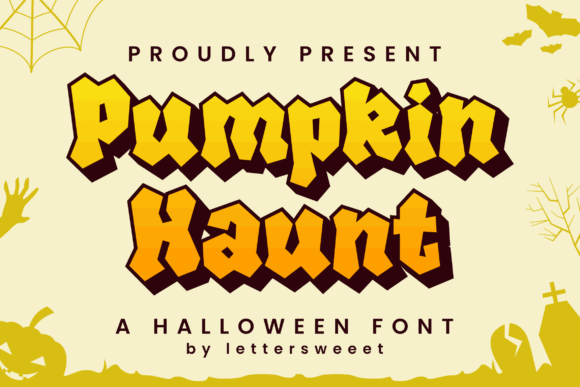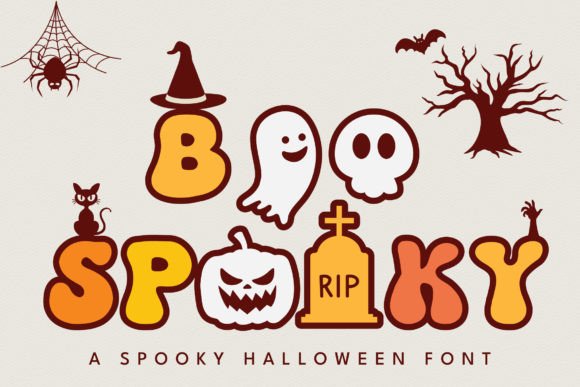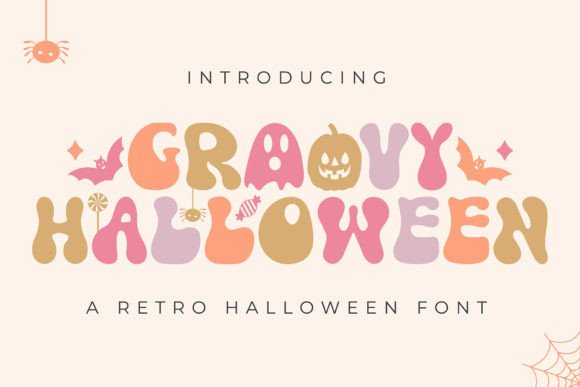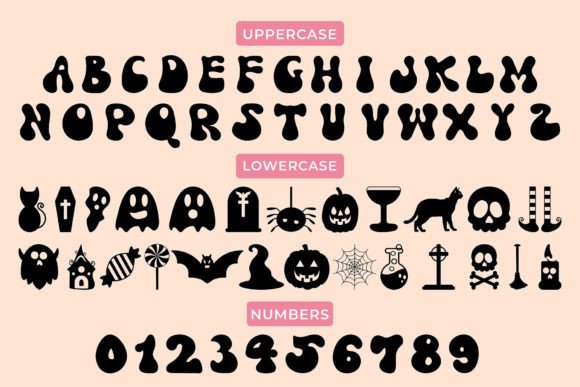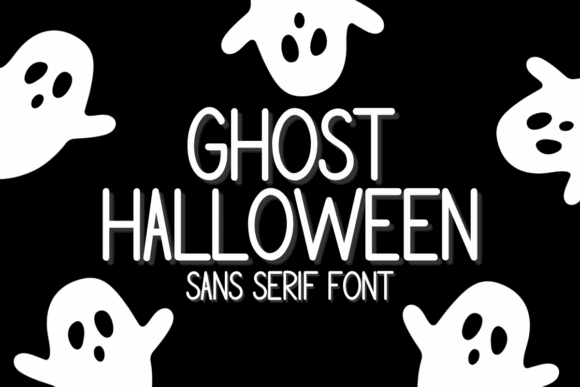
Cute Halloween bubble fonts give spooky-season designs a softer, friendlier personality without losing the October theme. I look for thick rounded letters, readable counters, playful irregularity, and decorative details that still reproduce cleanly on stickers, shirts, signs, treat bags, and classroom crafts.
The strongest pick for most projects is Spooky Bubble because it includes solid and outline styles plus built-in Halloween symbols. Spooky Vintage is my choice for retro crafts, while Halloween Monsters and Monster Eye suit kid-focused designs. For simple cutting projects, prioritize bold letters with open spacing and limited interior detail.
| Font | Best for | Format or style |
|---|---|---|
| Spooky Bubble | Versatile Halloween crafts | Solid and outline bubble font |
| Spooky Vintage | Retro shirts and stickers | Groovy all-caps display font |
| Halloween Monsters | Kidsโ party projects | Chunky cartoon lettering |
| Monster Eye | Monster-themed graphics | Rounded chunky display font |
| Pumpkin Haunt | Posters and treat labels | Bold shadowed display font |
| Boo Spooky | Cute ghost designs | Chubby decorative font |
| Groovy Halloween | Retro seasonal merchandise | Playful groovy display font |
| Halloween Ghost | Stickers and invitations | Rounded dripping font |
| Blockton Halloween | Readable signs and packaging | Bold block display font |
| Wonky Halloween | Handmade party decor | Quirky hand-drawn font |
| Ghost Halloween | Simple family-friendly layouts | Clean rounded sans serif |
| Halloween | Cute decorative headings | Handwritten and serif duo |
| Witchcraft Halloween | Coordinated invitations | Script and chunky sans duo |
| Scary Halloween Trio | Mixed-format craft sets | Serif, sans, and dingbats |
| Spooky Shadow | Dramatic layered titles | Decorative shadow font |
| Retro Spooky | Vintage October graphics | Bubbly retro display font |
| Spooky Season | Casual shirts and mugs | Bubbly handwritten font |
| Halloween Monsters | School and classroom crafts | Funny chunky lettering |
| Halloween Wonders | Bold handmade headlines | Rounded handwritten font |
| The Spooky Time | General Halloween crafting | Friendly display font |
| Spooky Time | Playful branding and decor | Handwritten display font |
| Halloween | Retro greeting cards | Playful retro display font |
| Halloween | Rounded spooky titles | Bold display font |
| Sunky Kids | Child-friendly Halloween text | Bubbly rounded display font |
| Chunky Glow | Bright groovy designs | Bold bubble display font |
How I Picked These
I compared these options by how well they fit the articleโs intended use, including readability, visual character, practical versatility, distinctive features, and how clearly each choice differs from the rest of the roundup. I prioritized options that solve a specific design need rather than simply adding more similar-looking products.
My Favorite Cute Halloween Bubble Fonts
1. Spooky Bubble
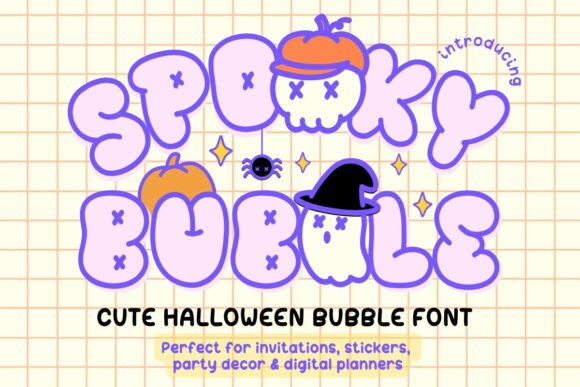
Spooky Bubble is an all-caps Halloween bubble font for crafters who want cute lettering and seasonal symbols in one coordinated package. Its rounded forms feel cheerful rather than scary, while the solid and outline versions give you immediate options for layered vinyl, coloring pages, labels, and poster titles.
This is my most versatile pick because the built-in pumpkins, ghosts, skulls, spiders, and other dingbats make it easier to create a complete composition. The all-caps structure is strongest in short phrases; long paragraphs would feel dense and visually repetitive.
Best for: layered vinyl, treat bags, classroom signs
Key features: solid style, outline style, all caps, Halloween dingbats
2. Spooky Vintage
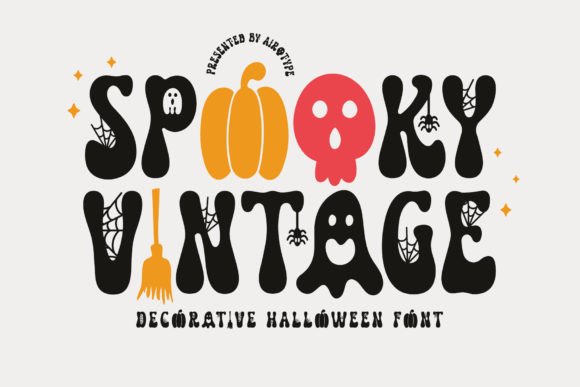
Spooky Vintage is a bubbly all-caps display font for retro Halloween shirts, stickers, and sublimation graphics. The thick groovy lettering creates an unmistakable 1970s mood, while spiderweb accents add a seasonal cue without overwhelming the text.
I like this font for designs that need to feel nostalgic, playful, and slightly spooky at the same time. Its decorative treatment makes it better for large headlines than small labels, and I would keep surrounding graphics simple so the web details remain visible.
Best for: retro shirts, stickers, sublimation prints
Key features: all caps, groovy curves, spiderweb accents, thick strokes
3. Halloween Monsters
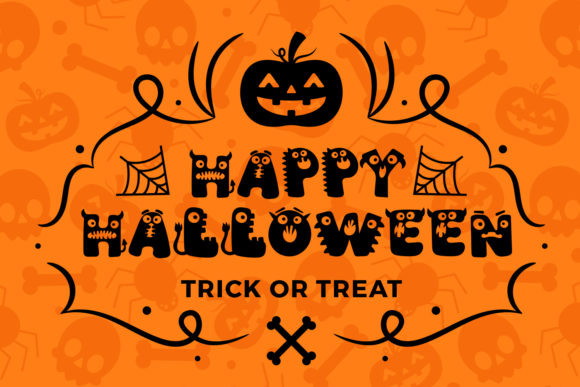
Halloween Monsters is a chunky cartoon display font for childrenโs party graphics, school projects, and friendly monster themes. The uneven letter shapes feel energetic and hand-drawn, giving titles a playful personality that pairs naturally with colorful ghosts, pumpkins, candy, and silly creatures.
This would be one of my first choices for elementary classroom decor because it looks festive without becoming grim or intimidating. The irregular forms can reduce clarity at very small sizes, so I would reserve it for headings, names, and short phrases.
Are outline or solid bubble fonts better for Halloween stickers?
Solid bubble fonts are usually better for small stickers because their shapes remain clear at reduced sizes. Outline fonts are more effective on larger stickers, layered decals, coloring sheets, or designs where the interior will hold a contrasting color or pattern. When using an outline style, check that the border is thick enough for the final print or cut size. Very thin outlines can disappear in printing or become difficult to weed in vinyl.